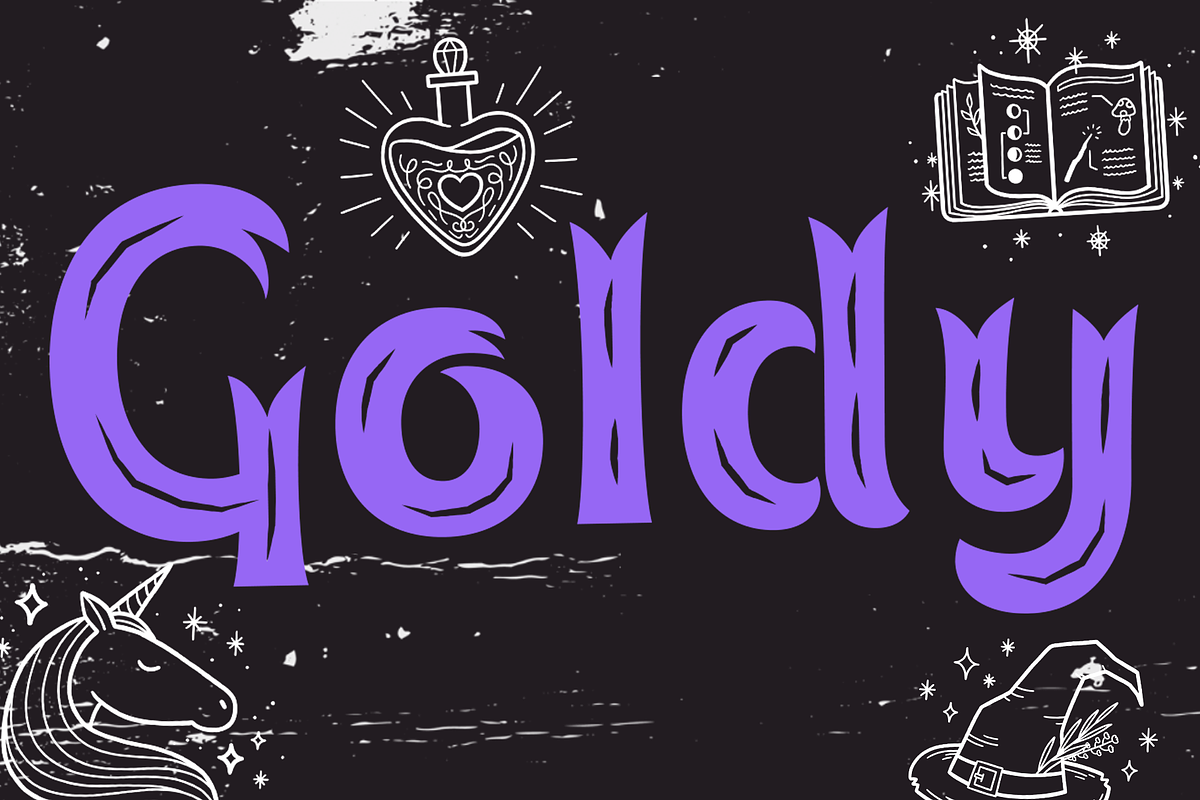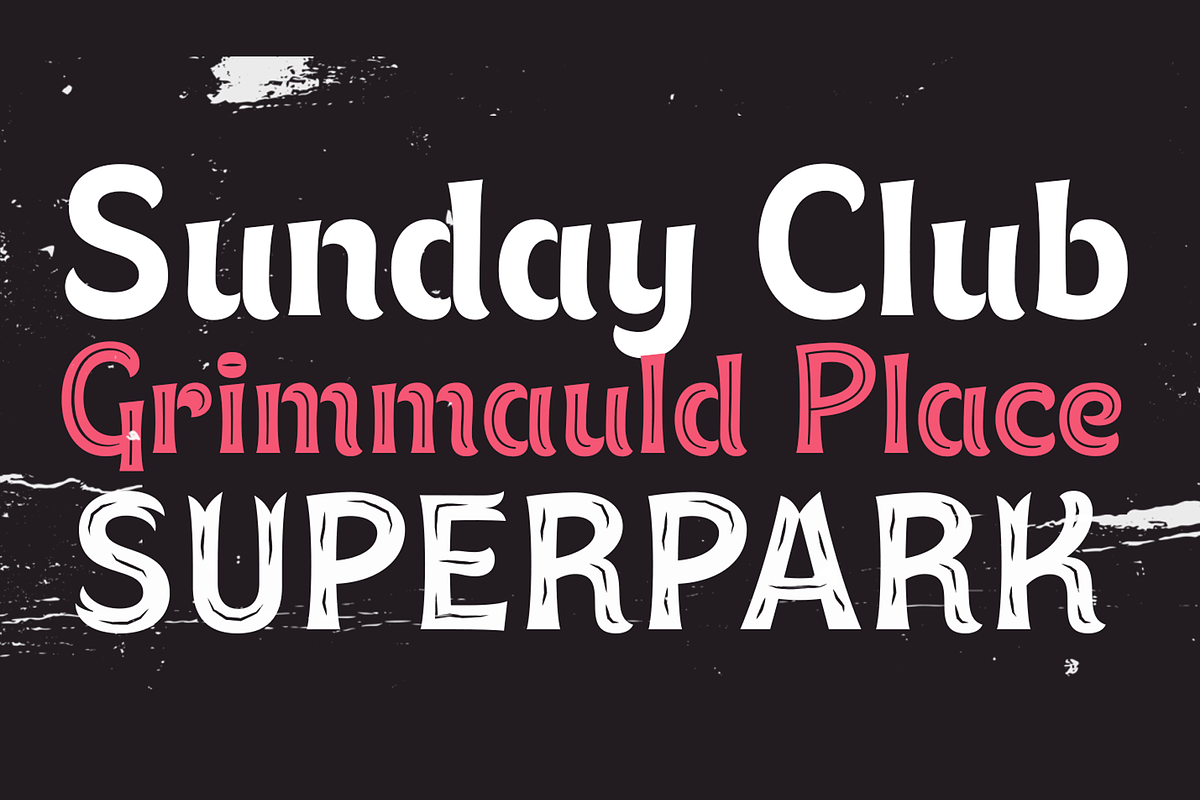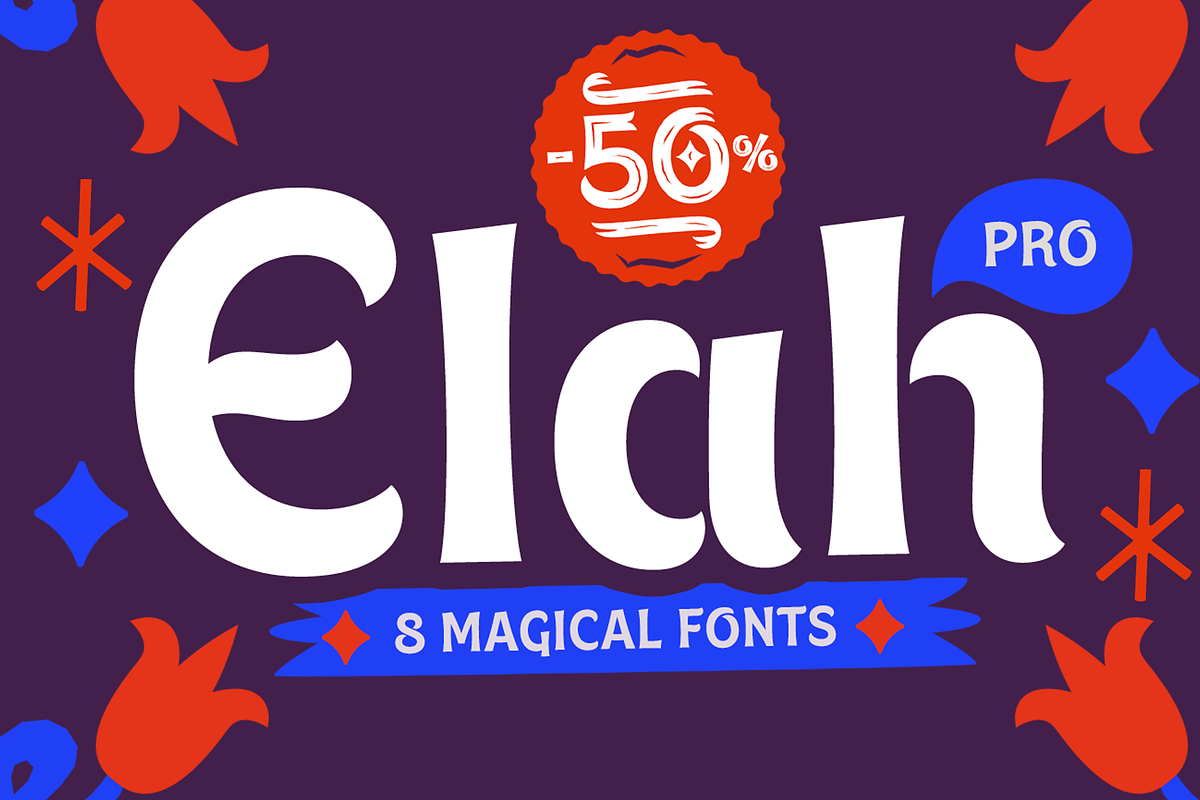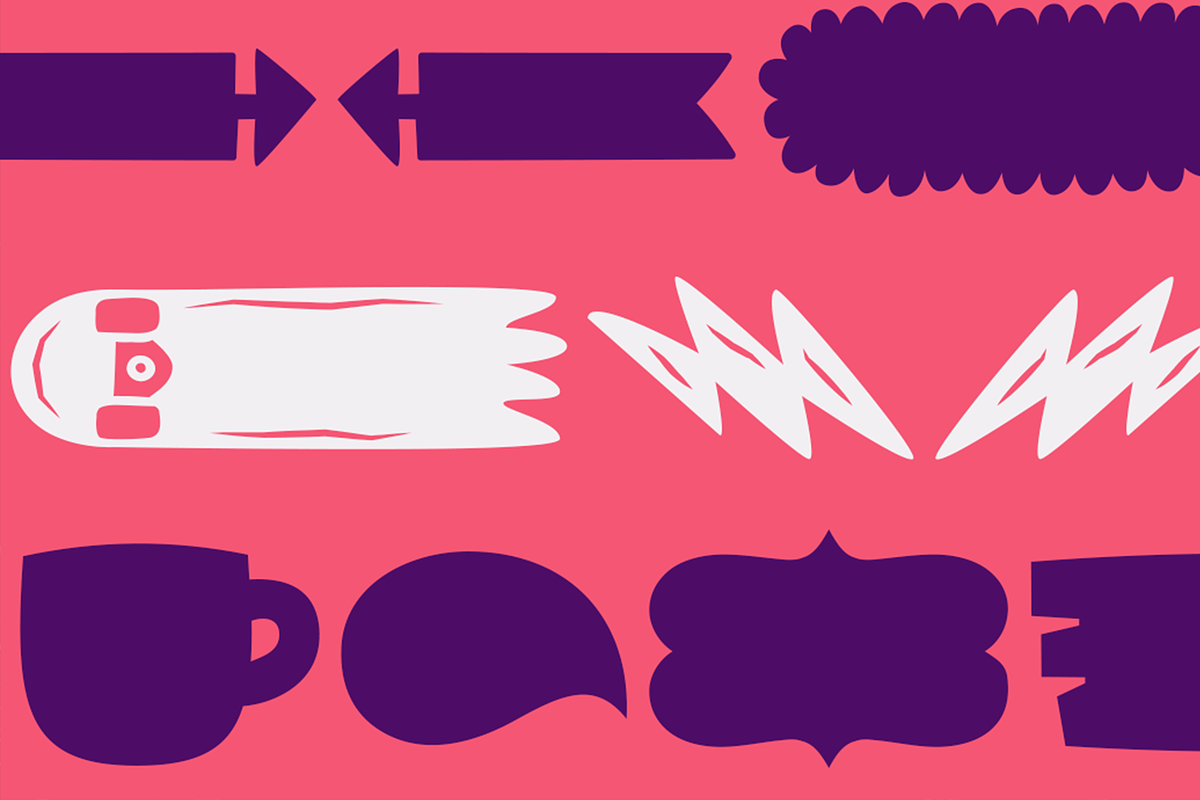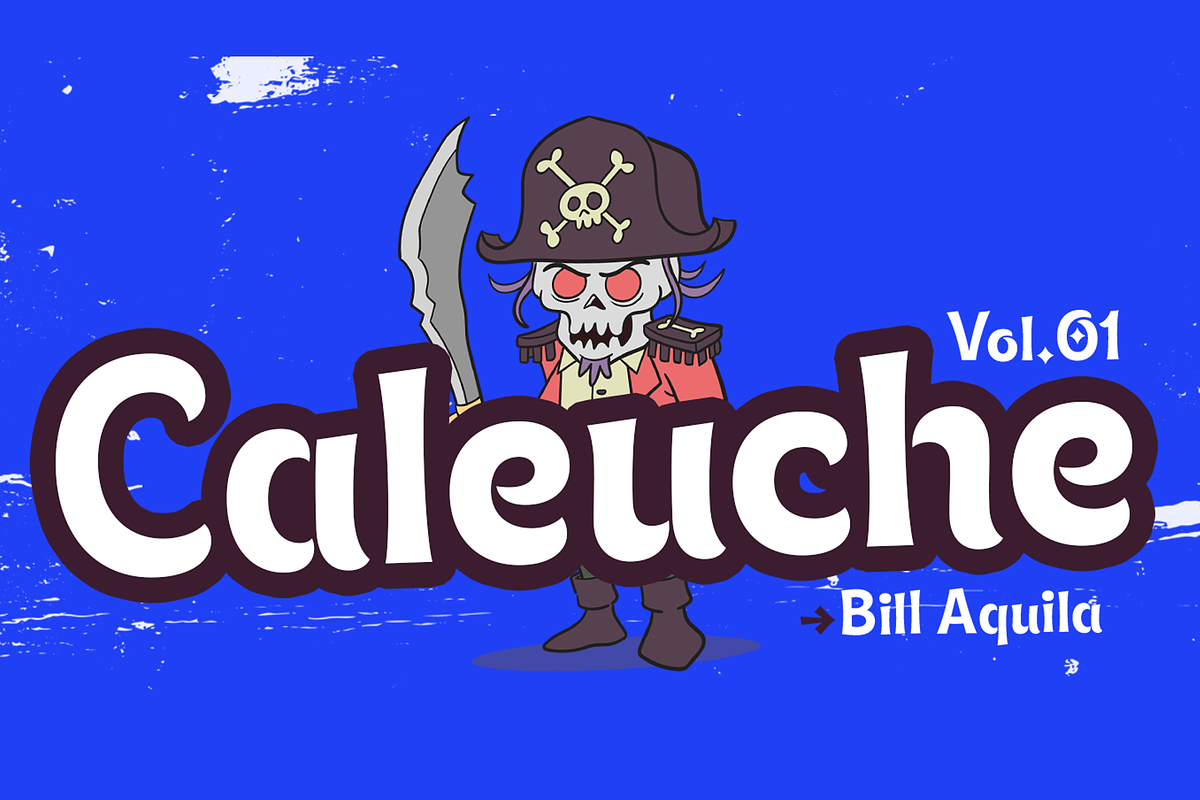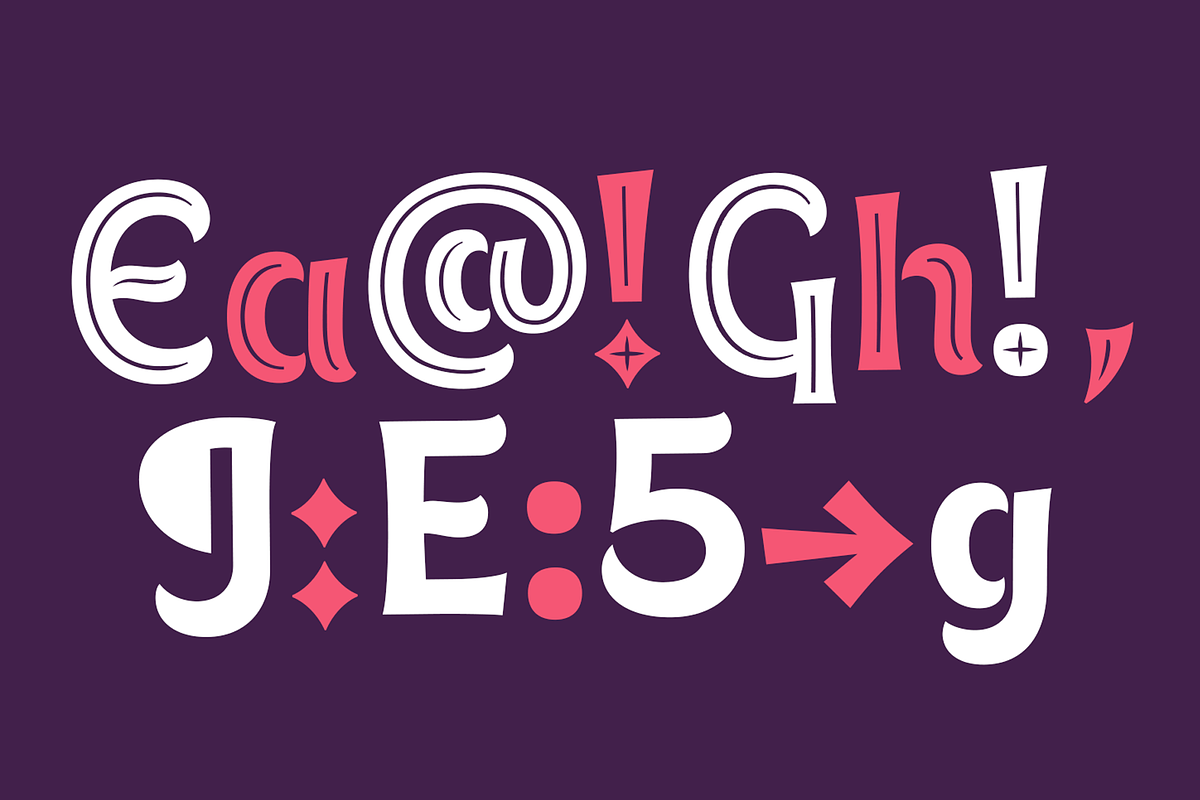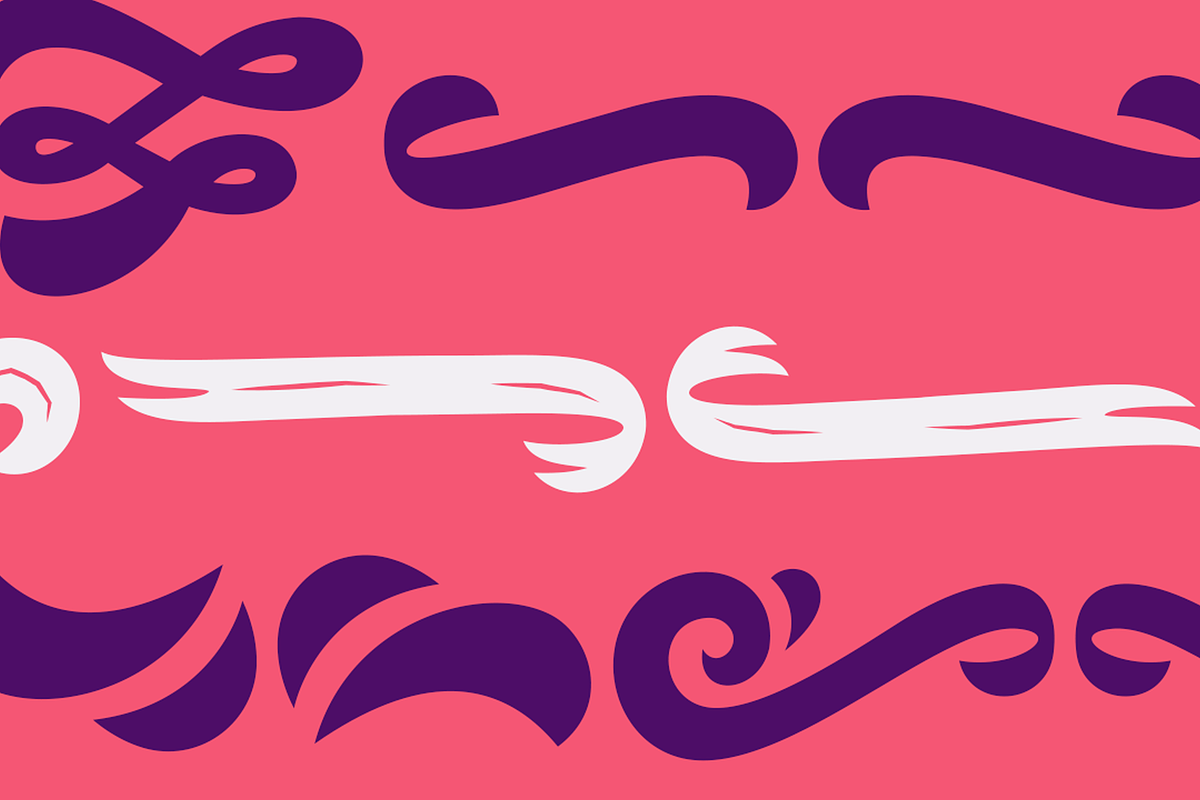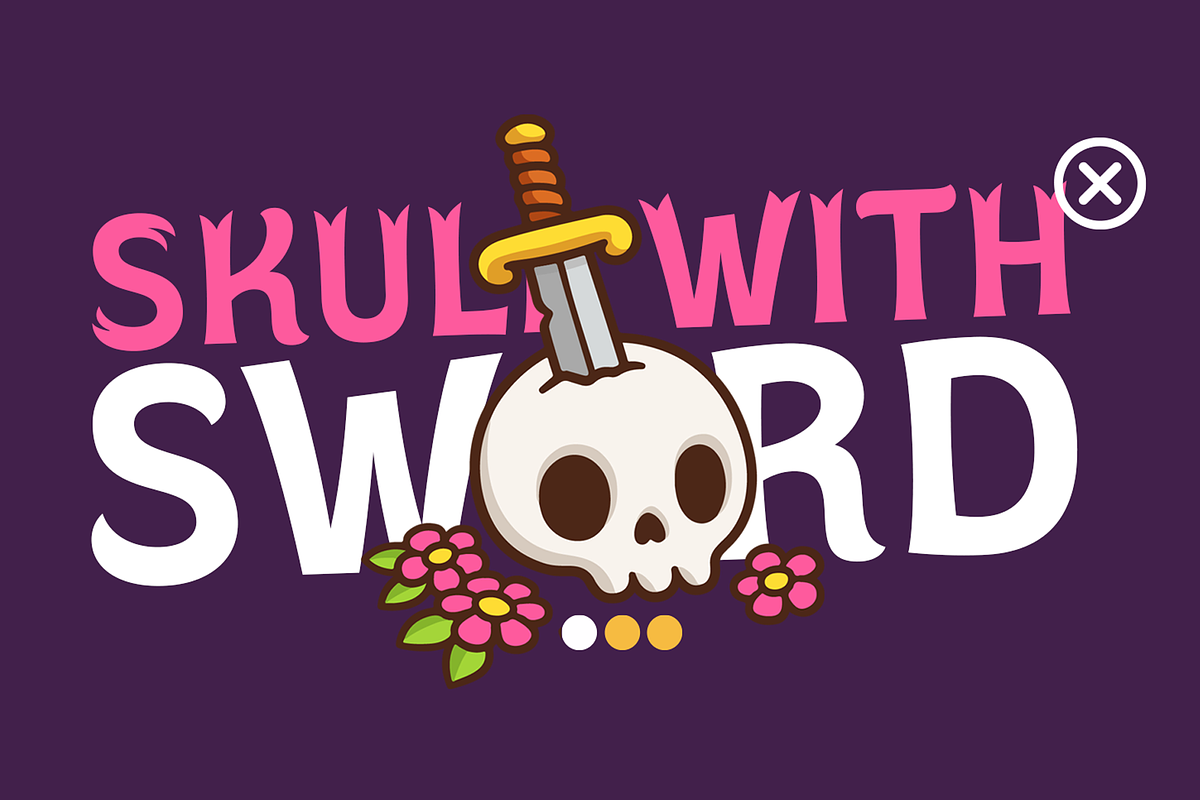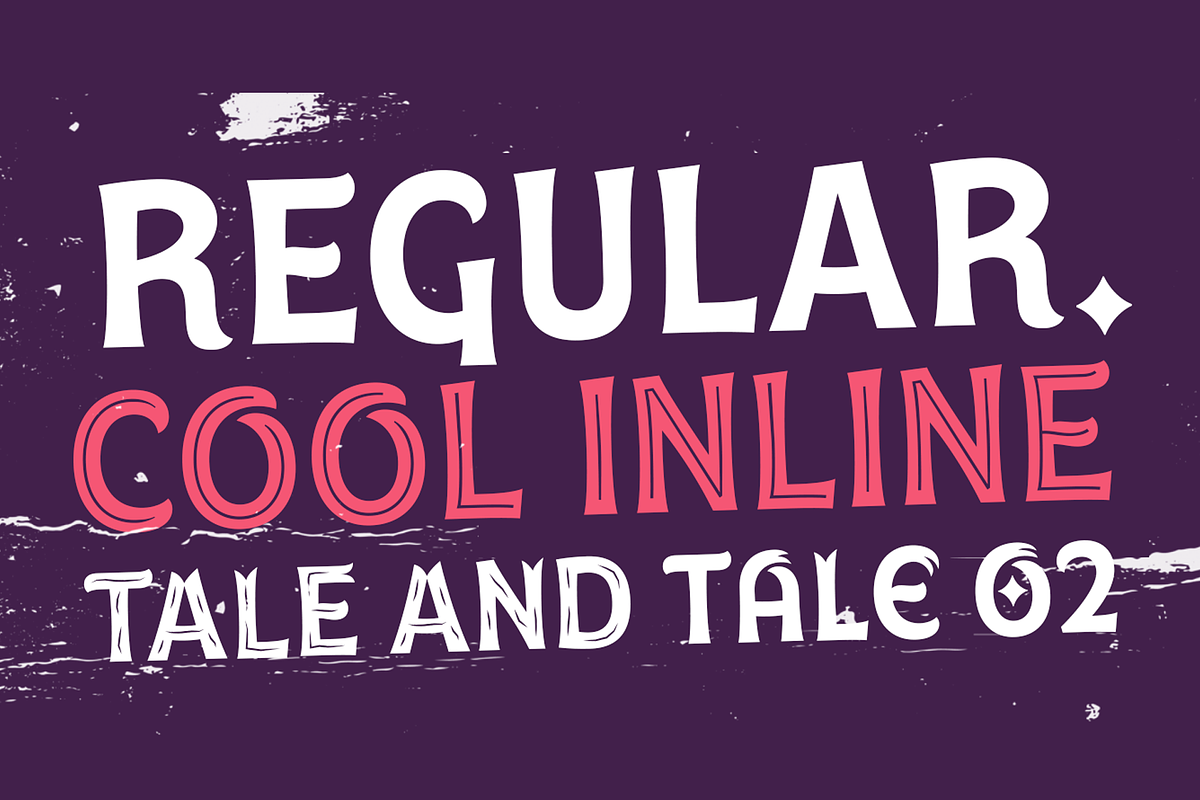
Elah Pro, An expressive family, special for titles with different Variants and styles, from Regular, Inline, Tales and Dingbtas like Ornaments. -- Rodrigo Araya Salas